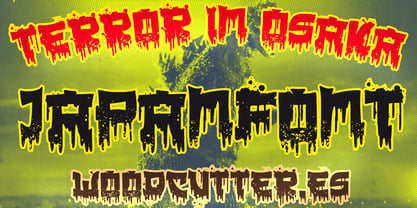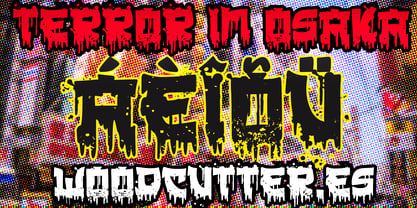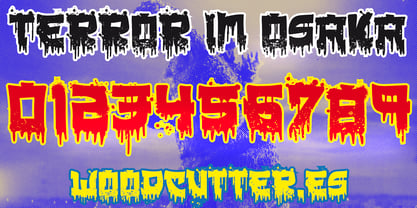
Terror in Osaka
by Woodcutter
The Terror in Osaka Font Family was designed by Jordi Manero and published by Woodcutter. Terror in Osaka contains 1 styles. More about this family
“Terror in Osaka” is an uppercase typeface that merges traditional Japanese style with a dark and terrifying twist. Its letters are designed to appear torn, as if shattered or broken, with dripping blood effects that enhance its horror aesthetic. The accents are seamlessly integrated, maintaining the font’s macabre and culturally evocative character. Perfect for horror projects, movie posters, or themed events, this typeface captures the essence of visceral fear with a bold and striking design that won’t go unnoticed.
Designers: Jordi Manero
Foundry: Woodcutter